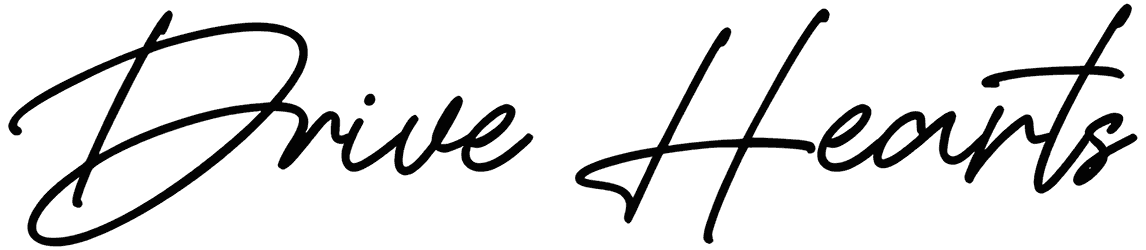
Drive Hearts Font
Drive Hearts is one of the best fonts available for design requirements demanding a stylish or bold touch. This handwritten font has narrow strokes and almost complex connections, which, despite affecting its readability, dramatically enhances the aesthetics of your writing.
The minimalistic appearance and lasting impression it leaves on the audience have made Drive Hearts suitable for tattoos, greeting cards, dedication letters, and wedding cards. They can provide a great sense of comfort to your audience by creating an informal atmosphere.